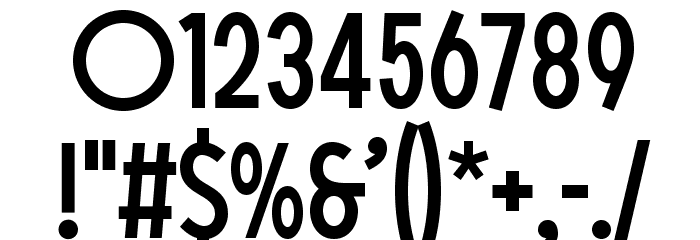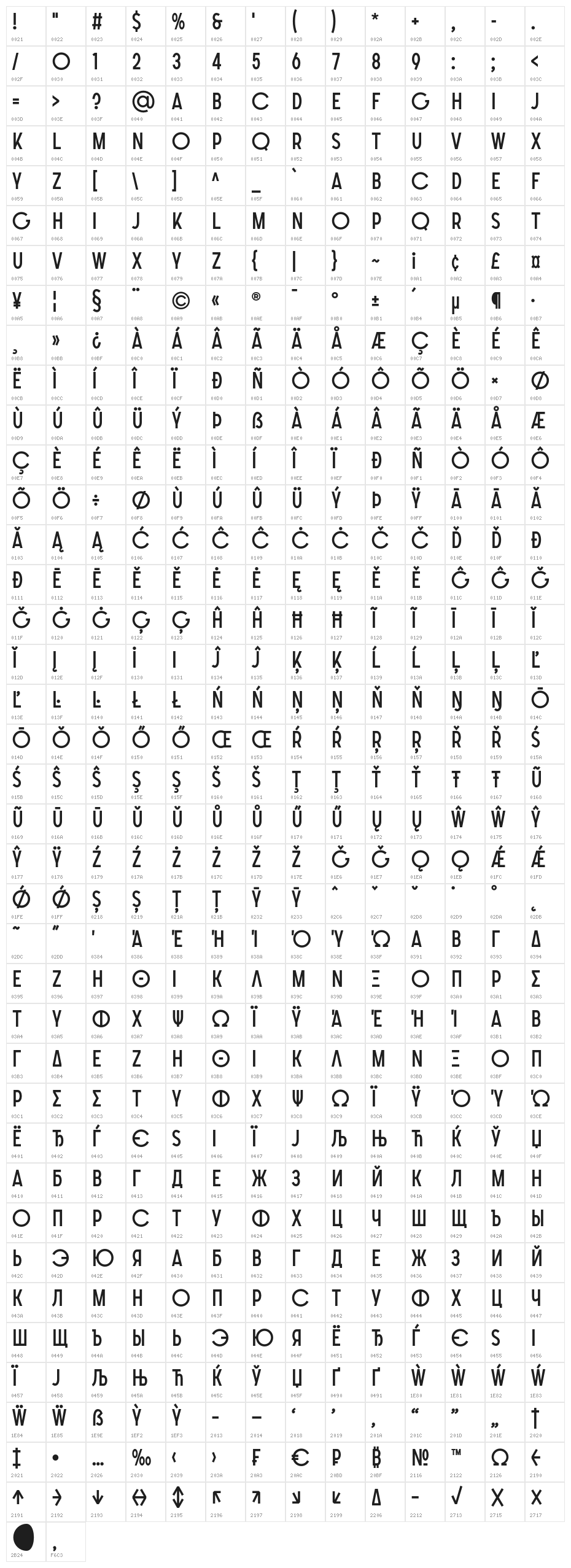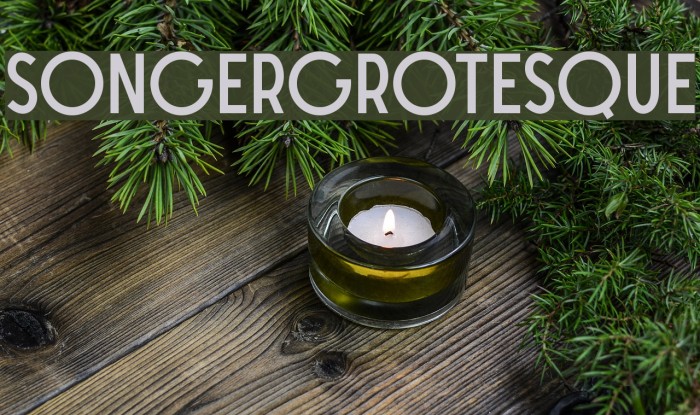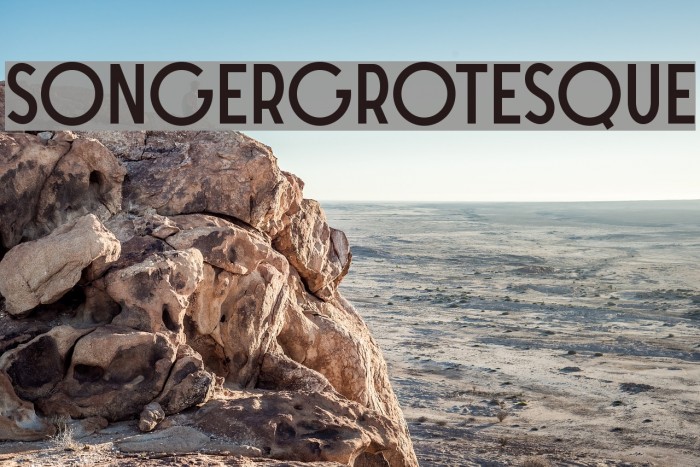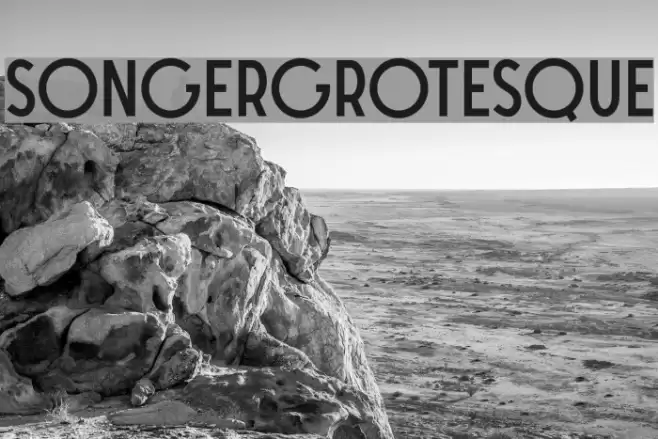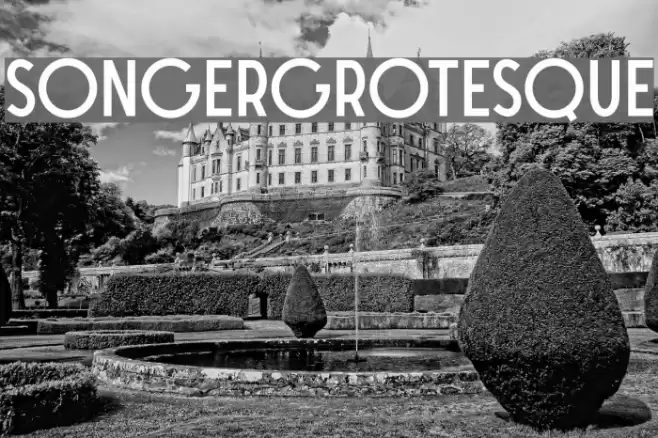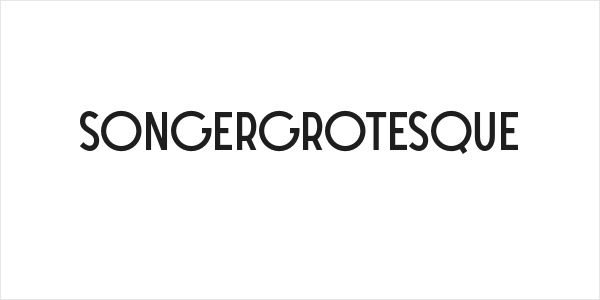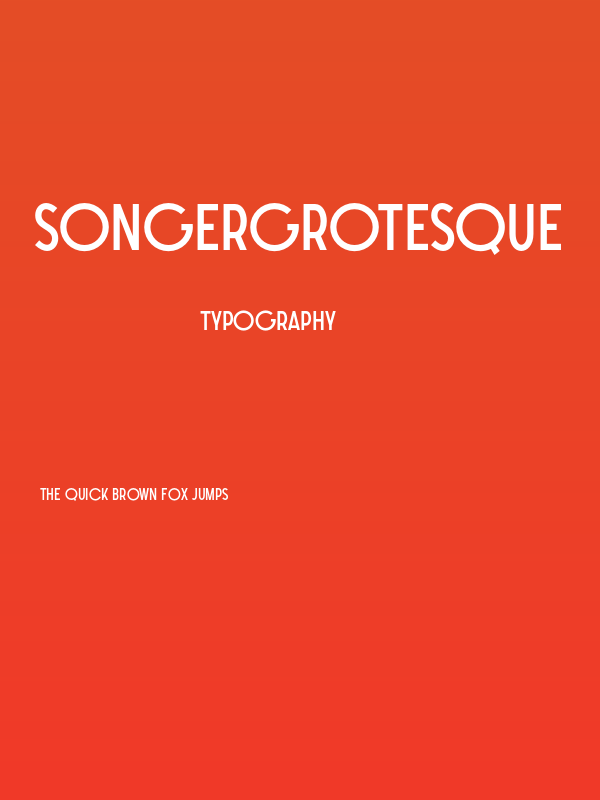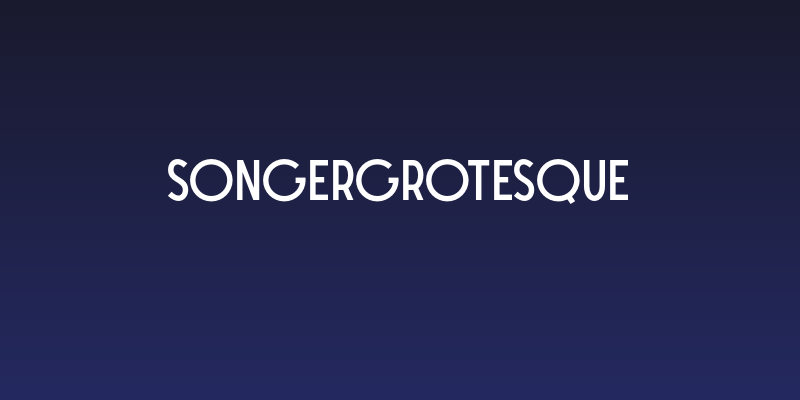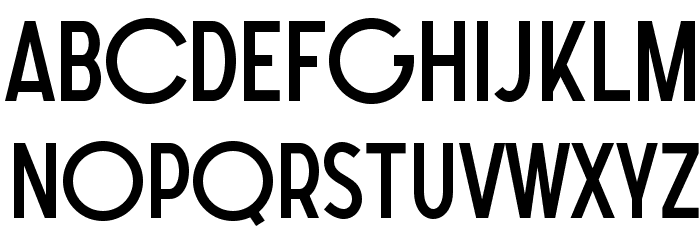
SONGERGrotesque Font
SONGERGrotesque Description
This typeface exhibits a clean and modern aesthetic with a strong geometric influence. The characters are bold and uniform, featuring consistent stroke widths that convey a sense of stability and clarity. The uppercase letters are particularly striking, with sharp angles and a balanced proportion that enhances readability. The numerals and special characters maintain the same geometric precision, ensuring a cohesive look across all elements. This font's simplicity and boldness make it versatile for various design applications.